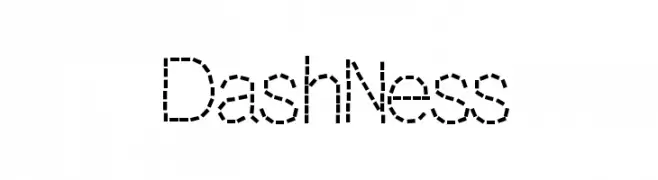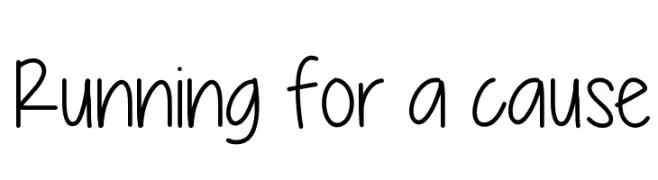
A playful, handwritten font with tall, narrow letters and consistent stroke thickness.
A playful, handwritten-style font with rounded edges and a casual feel.
A playful, connected font with lines and dots creating a whimsical look.
A playful font with heart motifs on each character, perfect for romantic and fun designs.
A festive, snowflake-adorned font perfect for holiday-themed designs.
A playful handwritten font with smooth curves and a casual style.
A playful, thin, and whimsical font with elongated strokes and a casual style.
A playful, handwritten script font with smooth, connected letters.
A modern, dashed line font with a playful and geometric style.
A playful, handwritten font with rounded, consistent strokes.